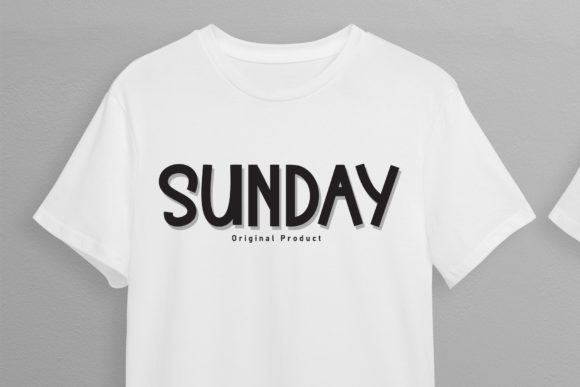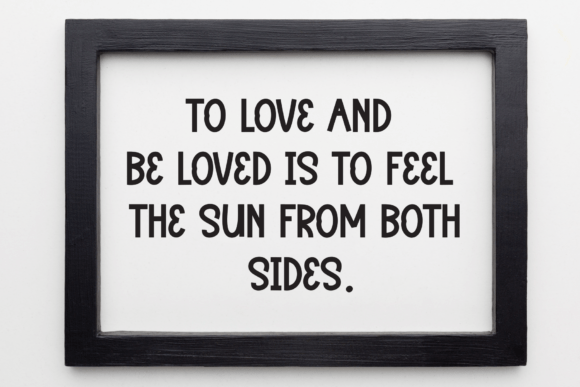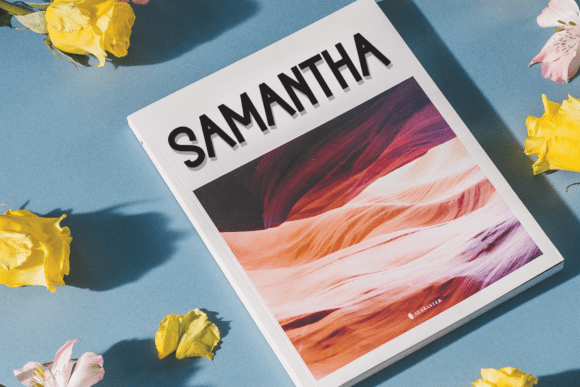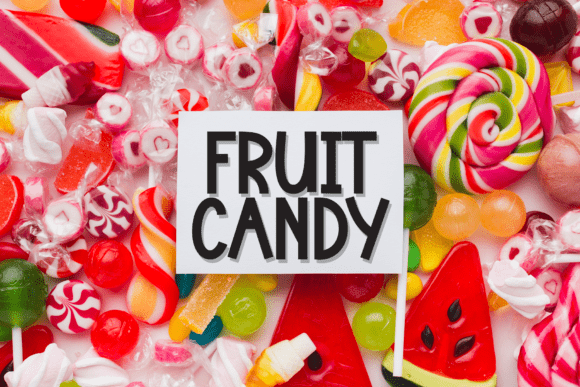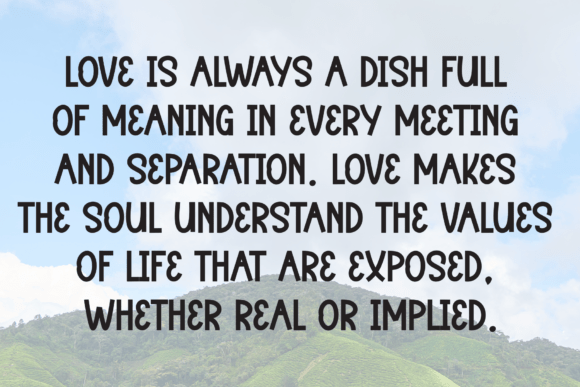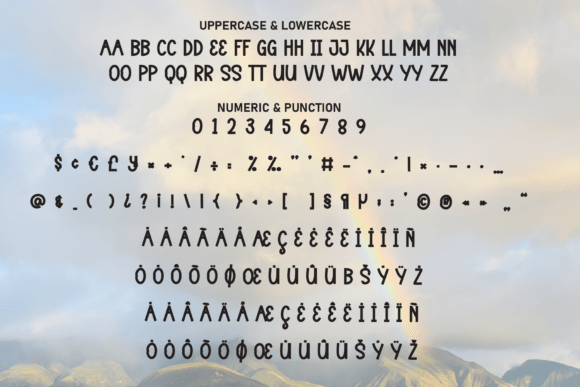
Introduction to Cupid Rainbow Font
Introducing a charmingly whimsical handwritten display font that exudes a warm, inviting demeanor.
Expressed through playful curves and delightfully buoyant finishes, this tasteful font enriches every design with a pleasing element of fun Witty and heartwarming, it serves as a perfect typographic companion to enrich beloved keepsakes such as wedding invitations or greeting cards.
Key Features of Cupid Rainbow Font